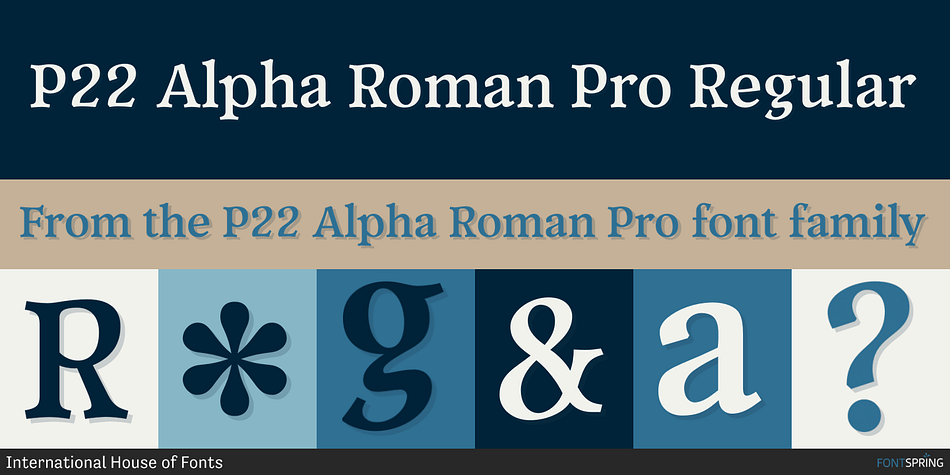
P22 Alpha Roman Pro Regular
P22 Alpha Roman Pro is a display serif font published by International House of Fonts.
P22 Alpha Roman and P22 Alpha Roman Pro are extensions of the font P22 Alpha Initials. With Alpha Initials, there is a decorative lowercase initial in place of a traditional Roman Cap. This feature is still available in Alpha Roman Pro, but by default, now has a more traditional set of Roman Caps. Alpha Roman is a playful calligraphic display typeface with a confident, yet casual, disposition. Alpha Roman Pro features Central European Character sets, ligatures and the decorative Alpha Initials as a titling feature.